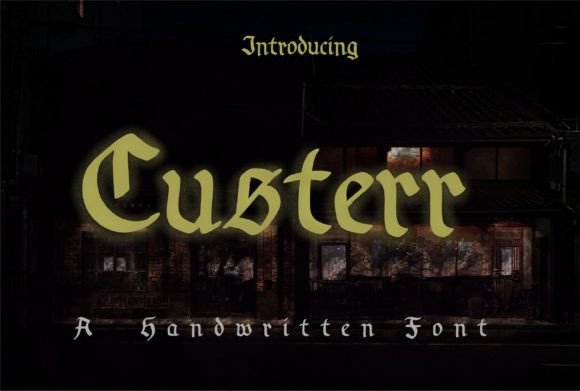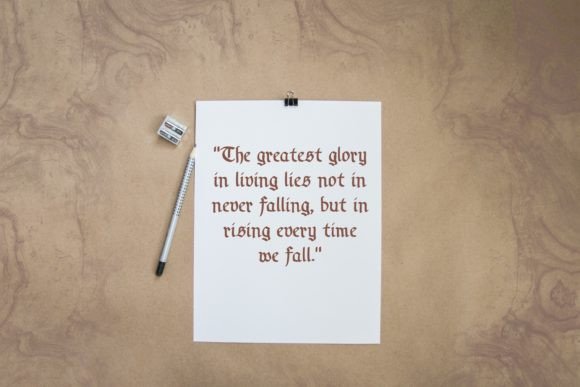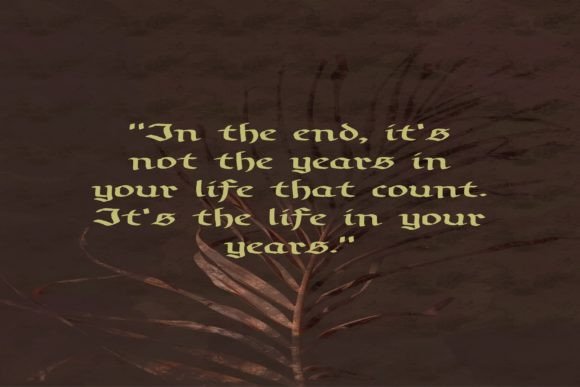
About Custerr Font
“Custerr” is a distinctive and elegant script font that exudes sophistication and class. Its unique design sets it apart, making it a standout choice for a variety of creative projects. The font’s versatility knows no bounds, fitting seamlessly into a wide range of designs and elevating them to new heights. By adding “Custerr” to your favorite creative ideas, you’ll witness how it breathes life into them, infusing them with a touch of refinement and charm.
The font’s stylish and classy appearance makes it suitable for a multitude of applications, from branding and logos to invitations, signage, social media posts, advertisements, product packaging, and more. Its flowing letterforms and graceful curves create a visually appealing and harmonious composition, making your text look elegant and polished.
What makes “Custerr” truly unique is its ability to adapt to various design contexts. Whether you’re aiming for a vintage-inspired look, a modern and minimalist aesthetic, or something entirely original, this font effortlessly enhances the visual appeal of your projects. Its versatility ensures that it can be used across different platforms and media, from print to digital, without losing its sophistication.
When you incorporate “Custerr” into your creative ideas, you’re adding a touch of class and exclusivity. The font’s distinctiveness sets your designs apart, making them memorable and visually striking. Its timeless elegance appeals to a wide audience, making it a valuable asset for designers, businesses, and individuals alike.
By choosing “Custerr” for your projects, you’re investing in a font that not only enhances the visual appeal but also conveys a sense of refined taste and attention to detail. Your designs will exude sophistication and charm, leaving a lasting impression on your audience. So, let “Custerr” be the secret ingredient that transforms your creative ideas into elegant and captivating masterpieces, showcasing your creativity and style in the best possible light.